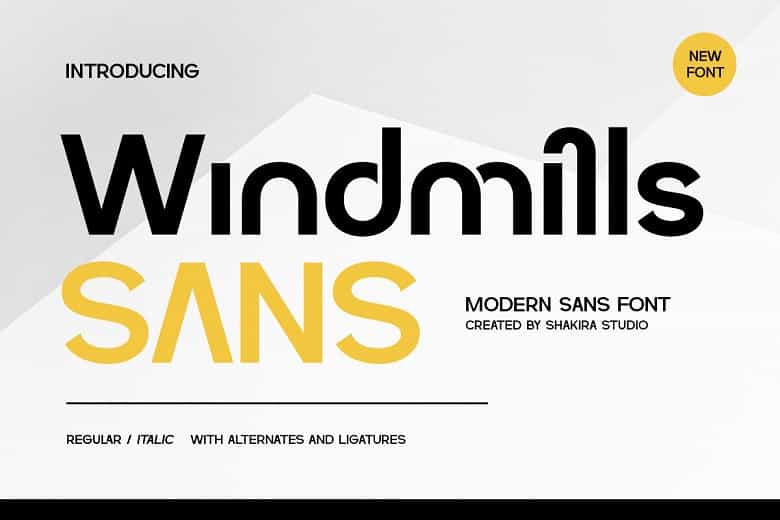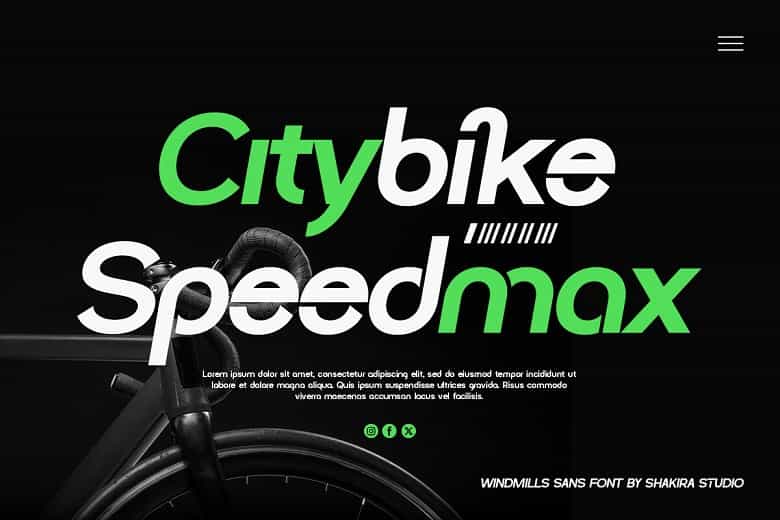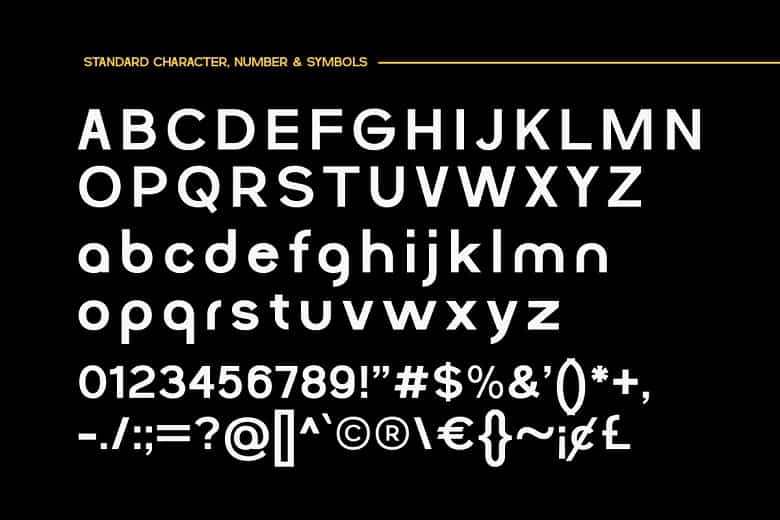
Windmills is a new sans serif typeface that is elegant and simple in design but with a lot of detail. This font comes in both regular and italic, and can be used in a wide range of design disciplines, from the creation of logos to.